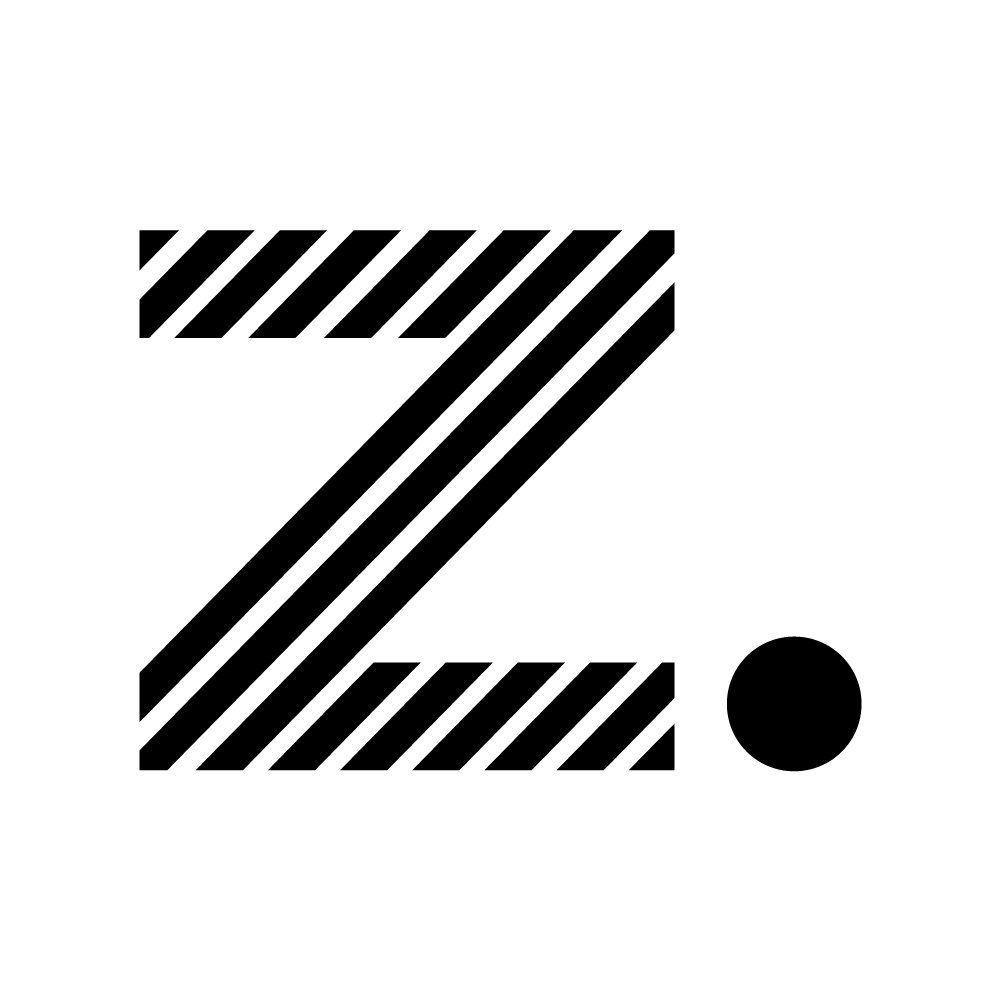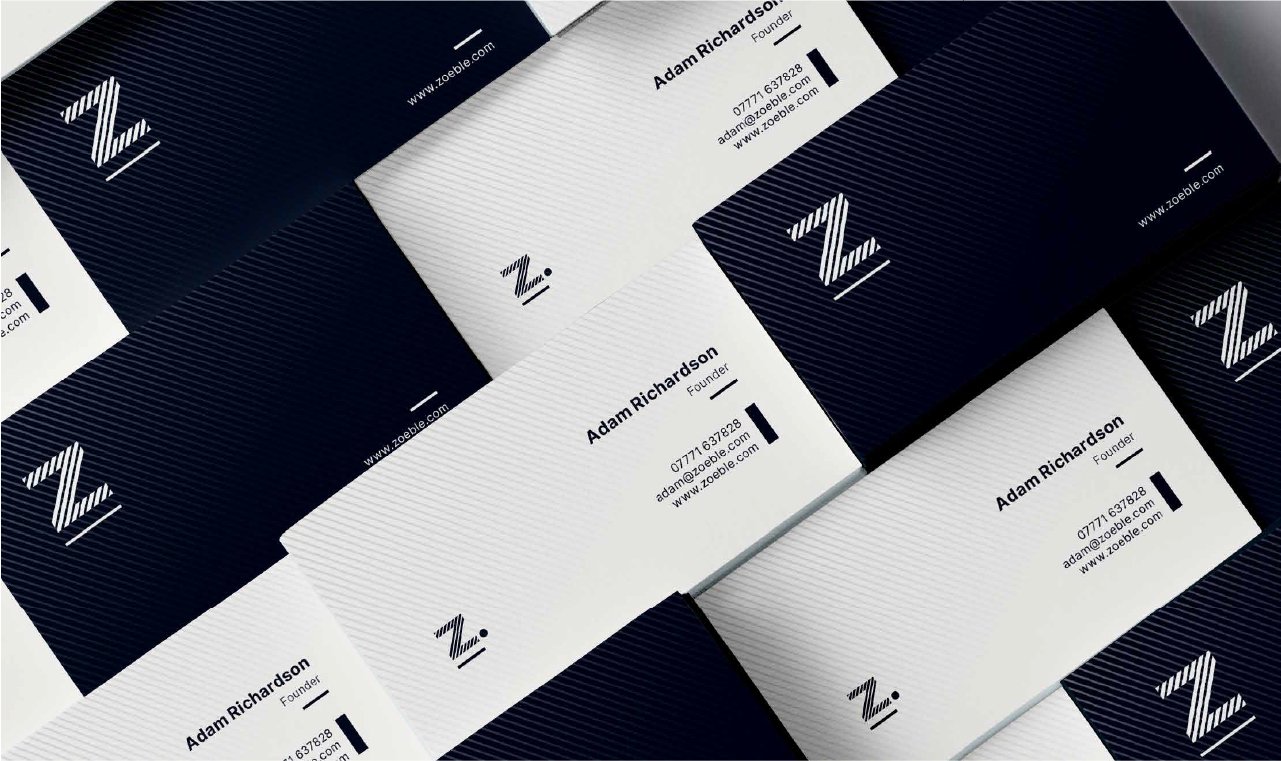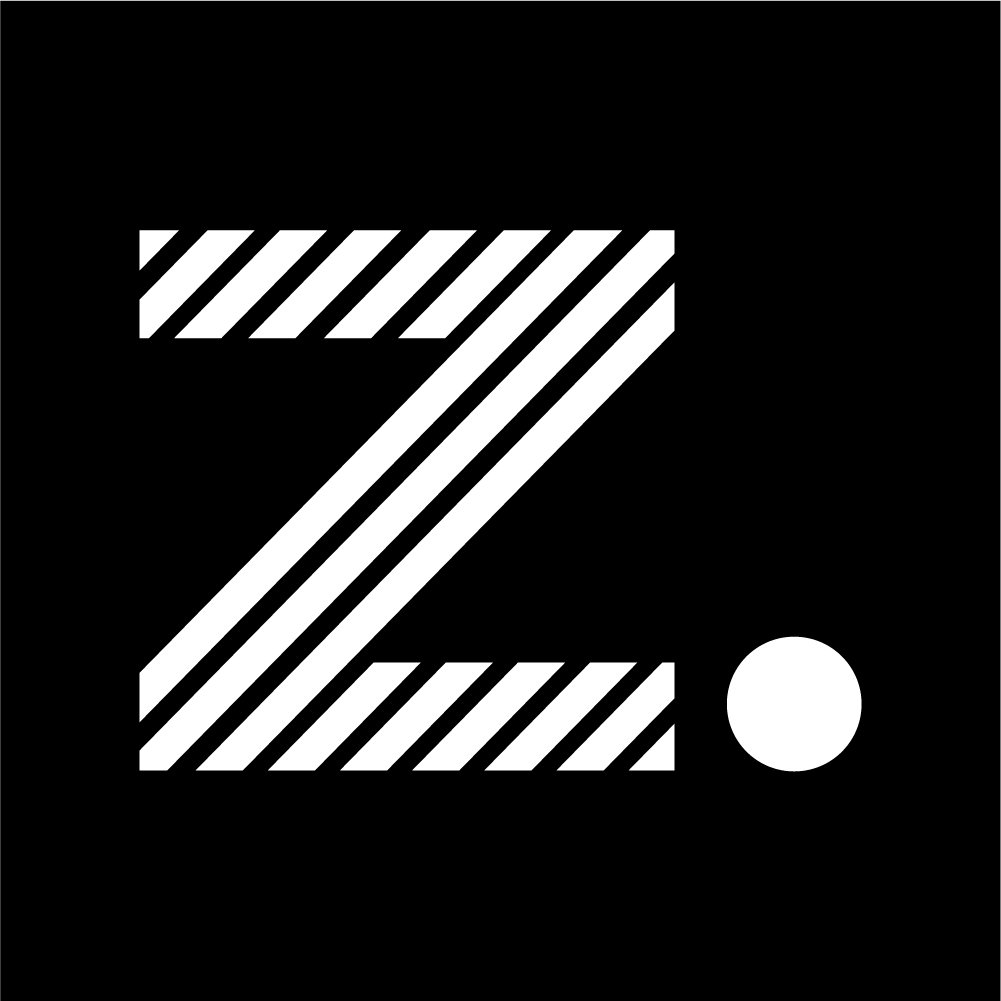
Zoeble
An identity engineered for developers - sharp, scalable, and built to flex across digital and real-world touchpoints.
Zoeble
brand system
Minimal design for maximum clarity.
We designed a simple, modular identity that stretches from docs and dashboards to swag. High contrast accents drive focus and the type system carries the brand. Clean, confident, and legible at a glance.
the Challenge
Zoeble needed a system grounded in product and UI realities, clear at a glance on web, social, and merch.
• - Mark must hold at tiny sizes and on dark UI.
• - Palette needs crisp contrast in code-heavy layouts.
• - Components reusable for social and web.
the Process
We built a minimal, modular system with a strong grid and purposeful motion.
• - Streamlined logotype + icon set.
• - Typographic system tuned for UI.
• - Asset library for quick campaigns.
the Refinement
Tuned spacing, curves, and contrast for high legibility and warmth.
the Outcome
A sharp, scalable identity that feels engineered and looks great everywhere.
System
A minimal grid with playful edges.
We rebuilt the Zoeble mark on a precise grid and softened key curves so it feels engineered yet friendly, confident, and instantly legible across UI, merch, and social.